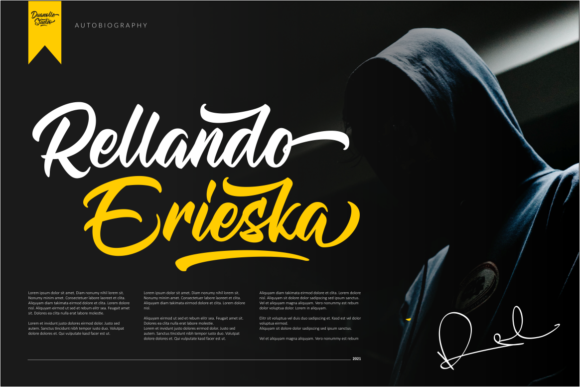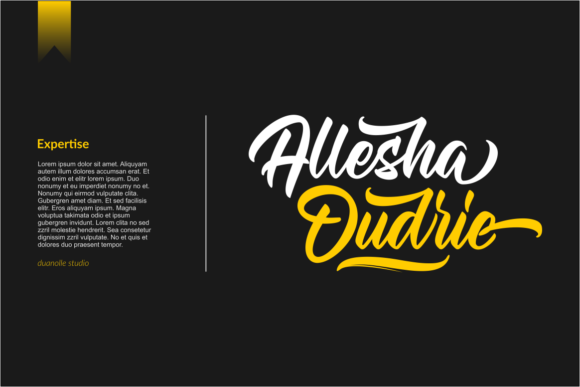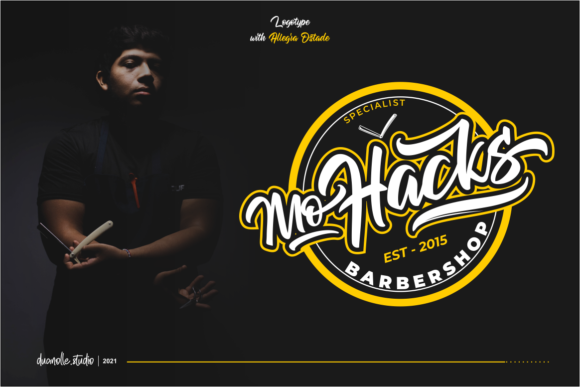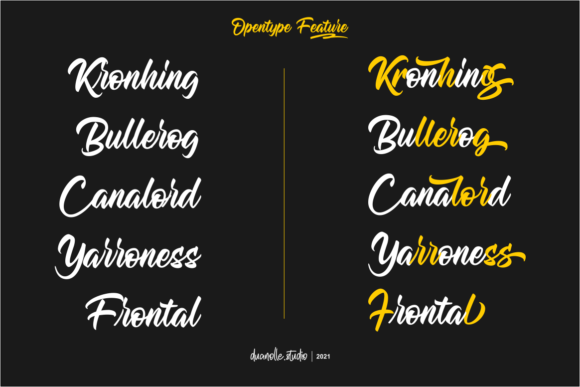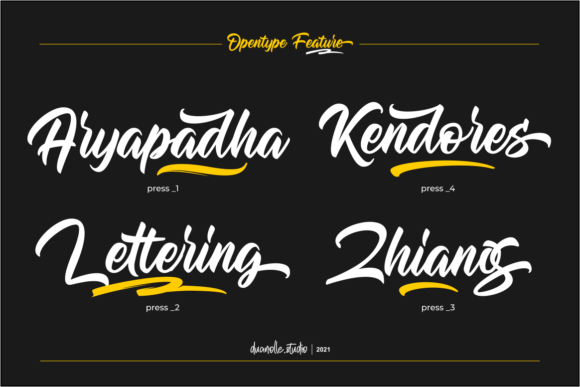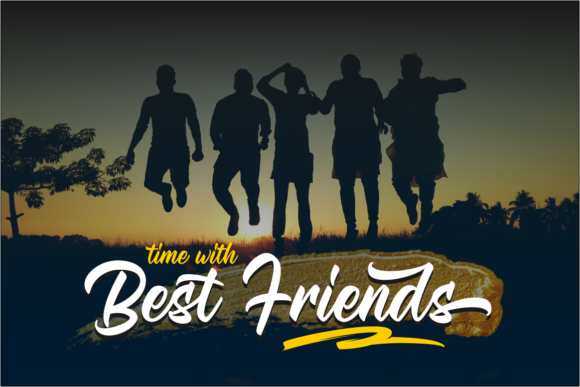
Introducing Allegra Ostade Font: Elevate Your Designs with Elegance and Sophistication
In the world of typography, a font can make all the difference in bringing your creative vision to life. If you’re a designer, crafter, or simply someone who appreciates beautiful typography, you’re in luck! Allegra Ostade is a stunning modern script font that can add a touch of elegance and sophistication to your designs. In this article, we’ll dive into the features and benefits of Allegra Ostade, and explore how you can use it to take your designs to the next level.
A Modern Script Font with Endless Possibilities
Allegra Ostade is a modern script font that exudes style and versatility. Its flowing lines and curves make it perfect for a wide range of design applications, from branding and advertising to packaging and digital media. With Allegra Ostade, you can add a touch of personality and whimsy to your designs, making them stand out in a crowded marketplace.
PUA Encoding: Unlocking Endless Creative Possibilities
One of the standout features of Allegra Ostade is its PUA (Private Use Area) encoding. This means that you can access all of the glyphs and swashes with ease, giving you unparalleled creative control over your designs. With PUA encoding, you can effortlessly swap out letters, add flourishes, and experiment with different combinations to create truly unique and eye-catching designs.
Key Features of Allegra Ostade Font
- Modern Script Style: Allegra Ostade features a sleek and contemporary script style that’s perfect for designs that require a touch of sophistication.
- PUA Encoding: Enjoy effortless access to all glyphs and swashes, giving you complete creative control.
- Endless Design Possibilities: From branding and advertising to packaging and digital media, Allegra Ostade is versatile enough to tackle any design project.
- Ease of Use: Whether you’re a seasoned designer or just starting out, Allegra Ostade is easy to use and integrate into your workflow.
How to Use Allegra Ostade in Your Designs
So, how can you start using Allegra Ostade in your designs? Here are a few ideas to get you started:
- Branding and Logo Design: Use Allegra Ostade to create stunning logos and brand identities that exude elegance and sophistication.
- Advertising and Marketing Materials: Add a touch of personality and whimsy to your ads, brochures, and other marketing materials with Allegra Ostade.
- Packaging Design: Make your product packaging stand out with Allegra Ostade’s beautiful script style.
- Digital Media: Use Allegra Ostade in your digital designs, such as social media graphics, website headers, and more.
Tips and Tricks for Getting the Most Out of Allegra Ostade
To help you get the most out of Allegra Ostade, here are a few tips and tricks:
- Experiment with Different Glyphs and Swashes: Don’t be afraid to try out different combinations of glyphs and swashes to create unique and eye-catching designs.
- Play with Font Sizes and Styles: Allegra Ostade looks great in a variety of font sizes and styles, so don’t be afraid to experiment.
- Pair with Other Fonts: Try pairing Allegra Ostade with other fonts to create stunning contrast and visual interest.
In conclusion, Allegra Ostade is a stunning modern script font that can elevate your designs to new heights. With its PUA encoding, endless design possibilities, and ease of use, it’s the perfect addition to any designer’s toolkit. Whether you’re a seasoned pro or just starting out, Allegra Ostade is sure to inspire your creativity and help you bring your ideas to life in spectacular style.